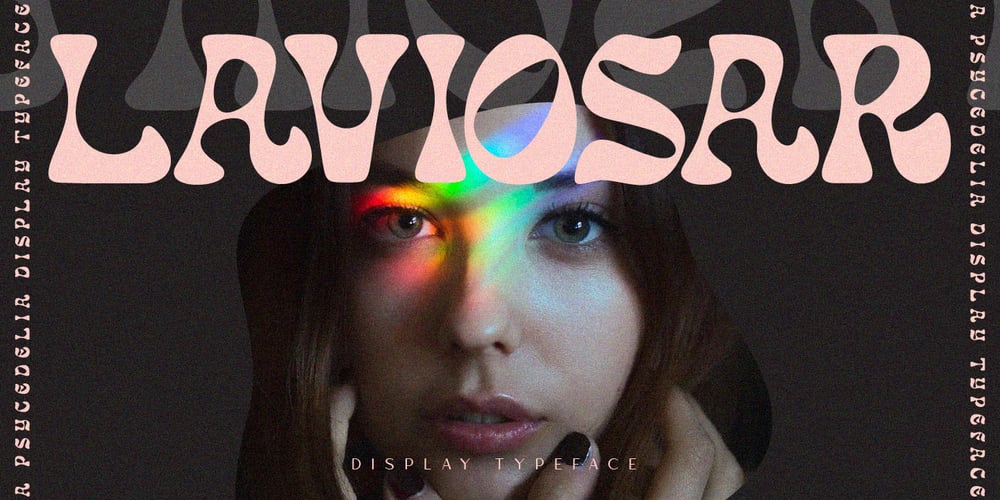
Laviosar Font Family was designed by Mussyayin and published by Say Studio. Laviosar contains 2 styles and family package options. Laviosar is a psychedelic inspired typeface. Unique tripped out lettering makes this font perfect for those groovy band poster, hippy logos and quotes. Laviosar mixes futurist letters with nostalgic curves to create stand out typography. Including lots of alternate letters!uppercase, alternates, numbers, punctuationMultilingual support Have a wonderful Day,Saystudio